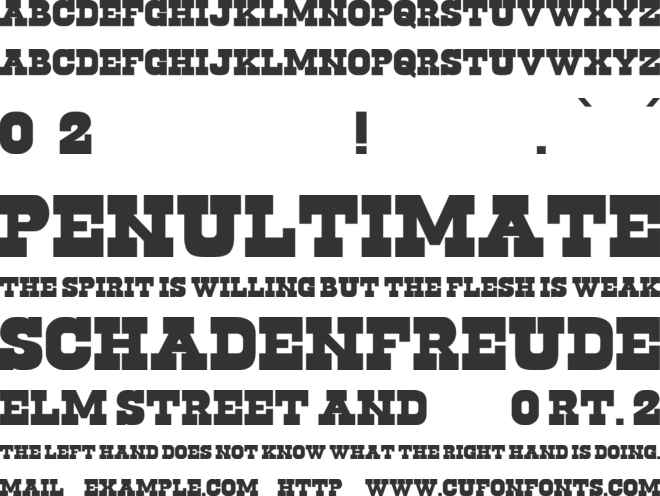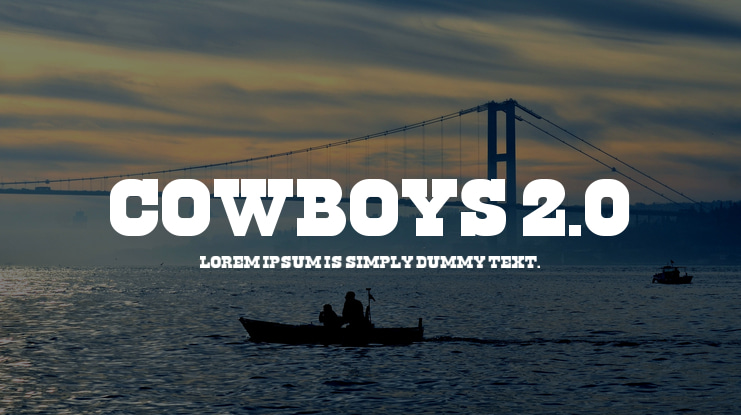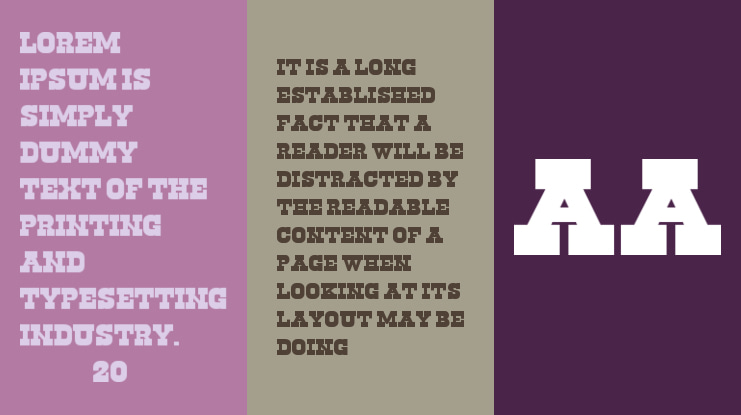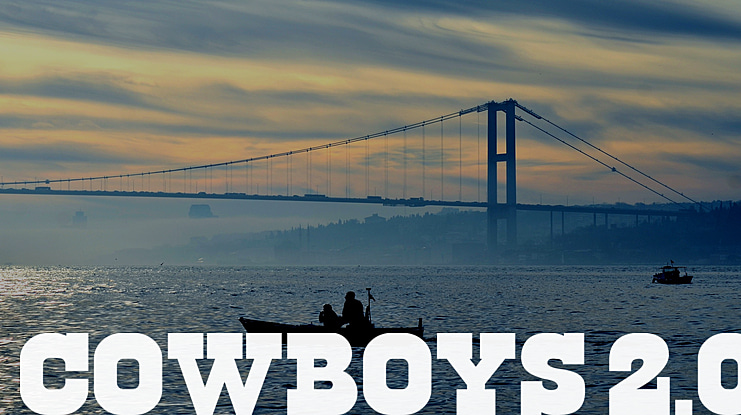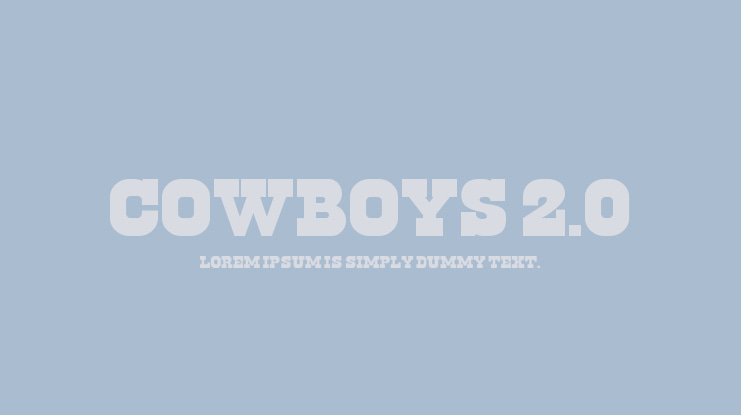
Cowboys 2.0 Font
After several years this long time classic gets a facelift the size of Texas! The popular slab serif has been carefully redesigned to meet today’s standards for print. Basic Latin, Extended Latin, Cyrillic, punctuation, and kerning are included in the full version. The demo includes Basic Latin and Cyrillic. Because this is a titling display font not all characters are included so please make sure the ones you need are supported. Use Cowboys 2.0 for a t-shirt, logo, or poster.